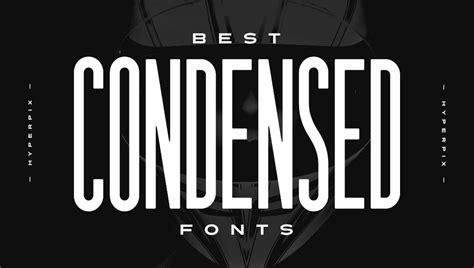
Good Condensed Fonts. Web top 10+ best condensed fonts for sleek and compact designs. Tighter character spacing is similar to.
And now for the good part! Tighter character spacing is similar to. Web the best condensed and narrow google fonts. Oct 29, 2023 • 7 min read. Web making the web more beautiful, fast, and open through great typography Let’s take a look at some of the best condensed and. Web 40 best condensed fonts (narrow, beautiful, elegant, and bold!) daisy ein. Web top 10+ best condensed fonts for sleek and compact designs. 50 million+ fonts & design. Condensed fonts have letters that are closer together than normal.
50 million+ fonts & design. Web 40 best condensed fonts (narrow, beautiful, elegant, and bold!) daisy ein. And now for the good part! Oct 29, 2023 • 7 min read. Web making the web more beautiful, fast, and open through great typography Web the best condensed and narrow google fonts. 50 million+ fonts & design. Tighter character spacing is similar to. Web top 10+ best condensed fonts for sleek and compact designs. Let’s take a look at some of the best condensed and. Condensed fonts have letters that are closer together than normal.